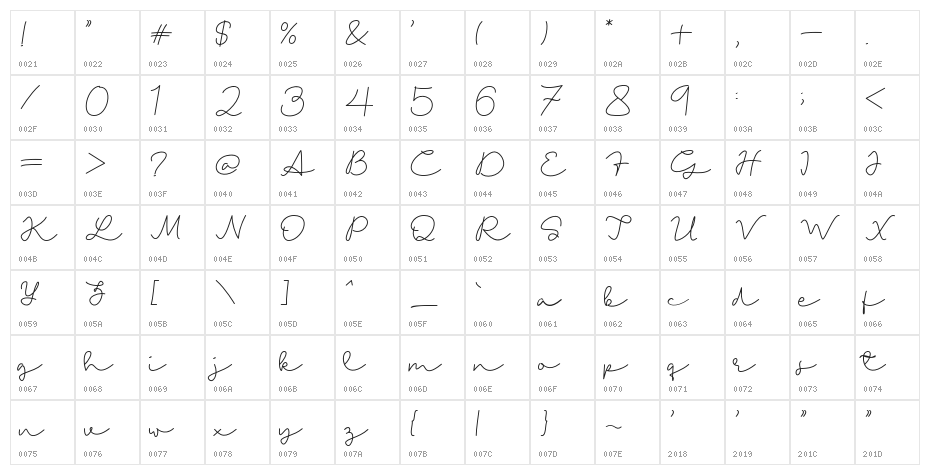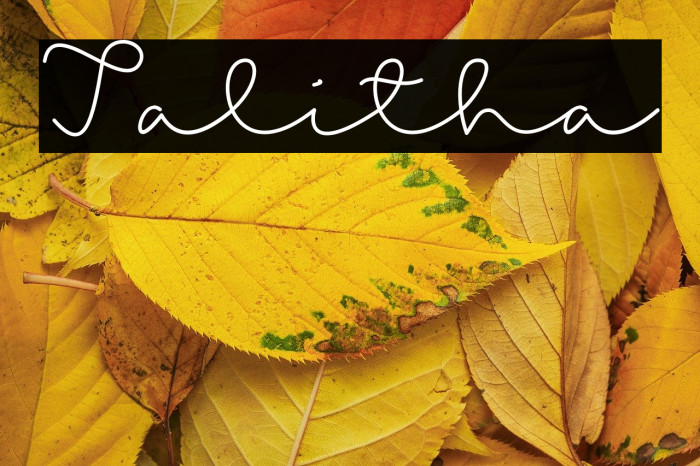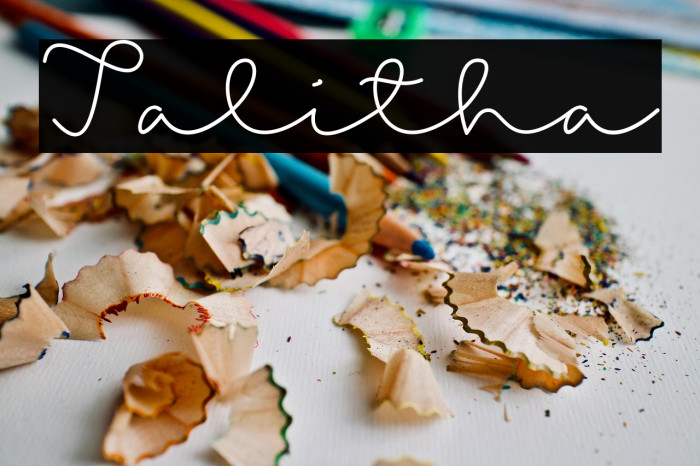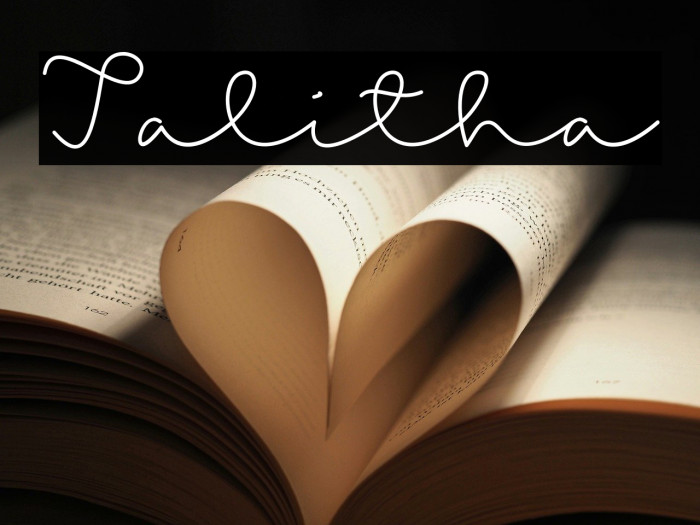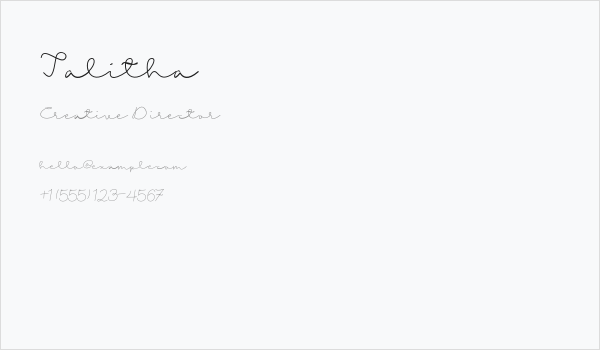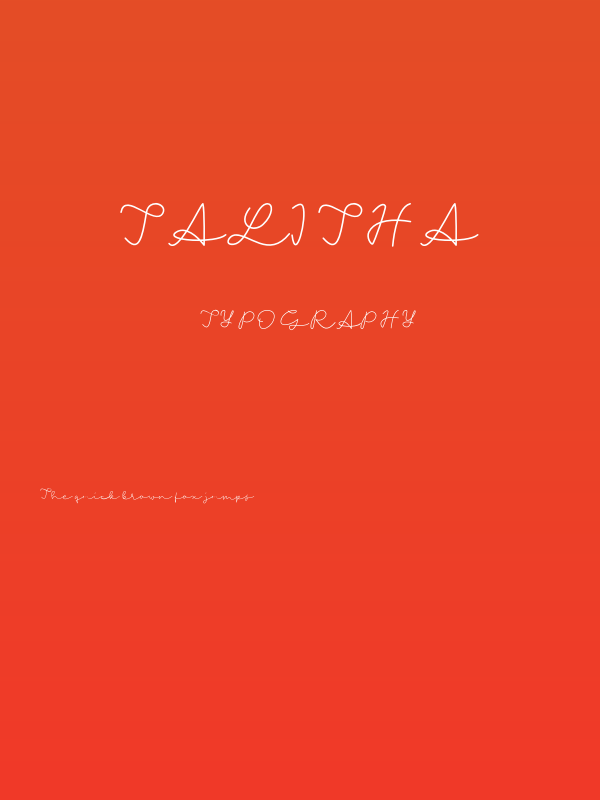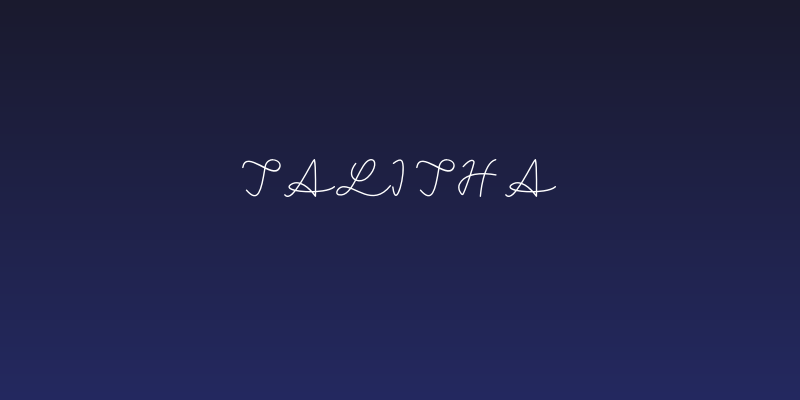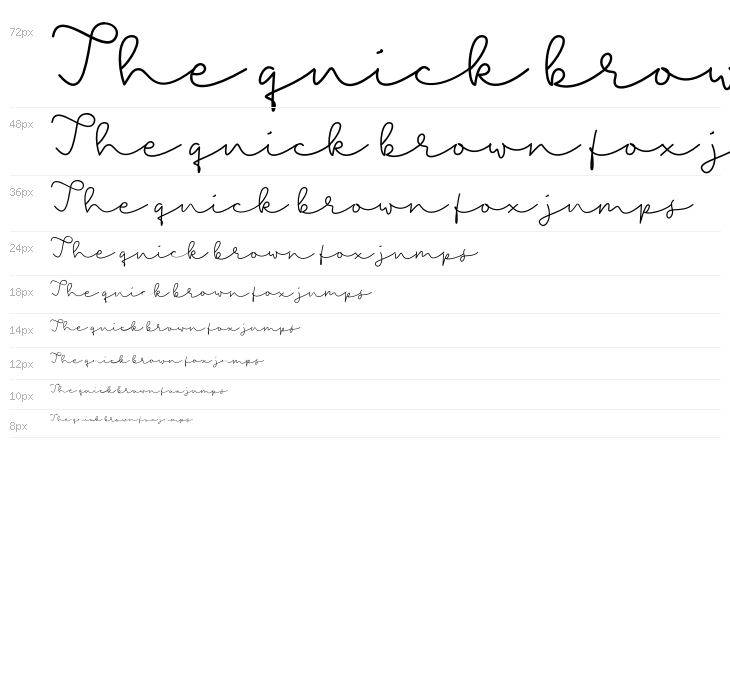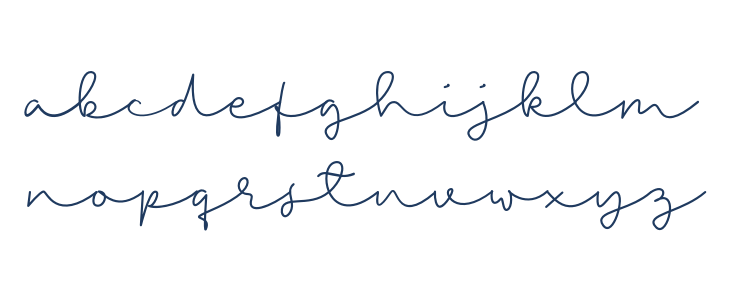
Talitha Font
Talitha Description
This font features a delicate and flowing script style, characterized by its elegant and continuous strokes that mimic natural handwriting. The uppercase letters are slightly more embellished, with graceful loops and curves, while the lowercase letters maintain a consistent, fluid motion. The numerals and special characters are crafted with the same attention to detail, ensuring a cohesive look throughout. This font exudes a sense of sophistication and charm, making it ideal for projects that require a personal touch. The overall design is airy and light, with a medium contrast in stroke thickness, giving it a refined yet approachable appearance.
Overall StyleElegant, Sophisticated
Use CaseLogos, Invitations, Personal Branding
Proposed ProjectsIdeal for wedding invitations, personal branding, greeting cards, and elegant stationery.